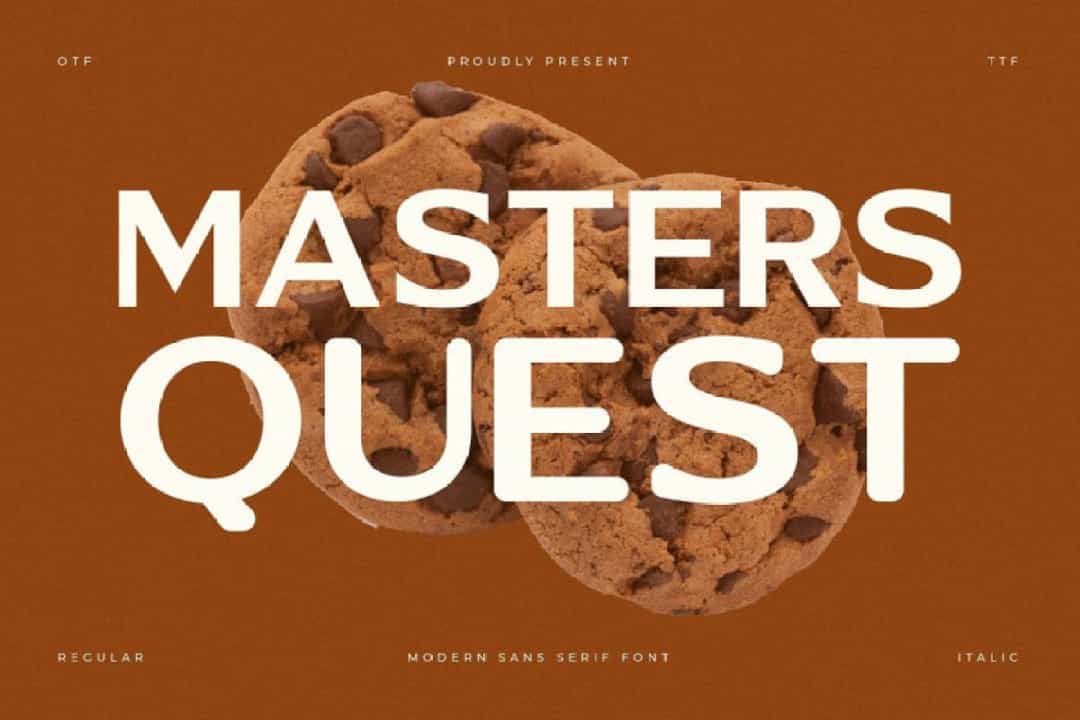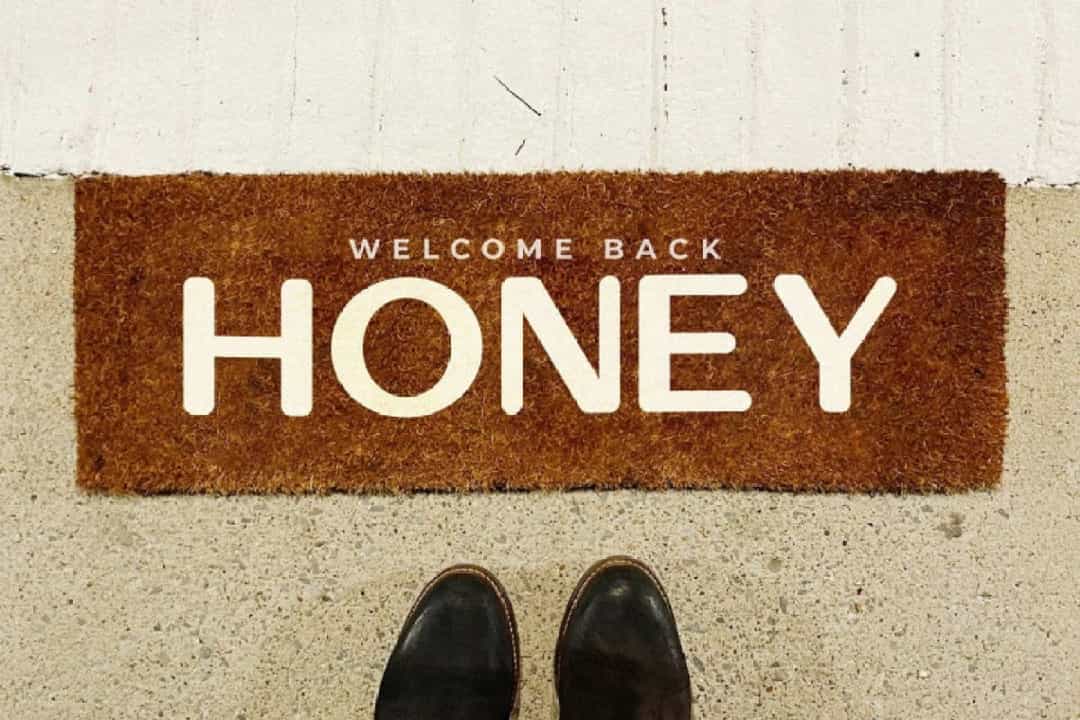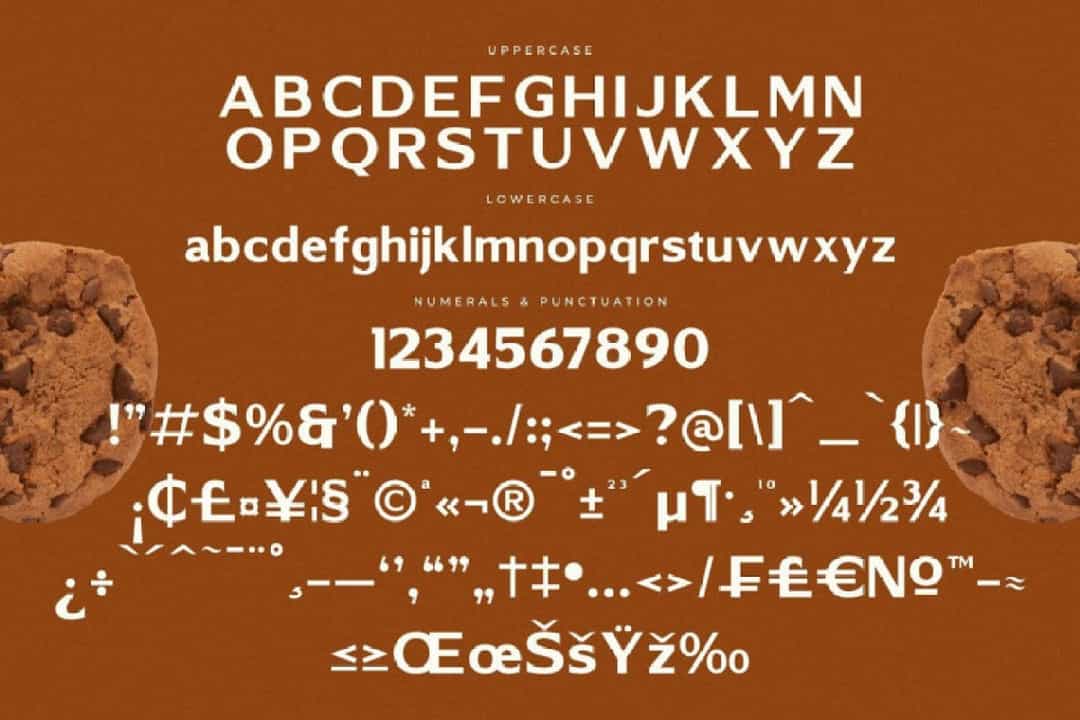
Masters Quest is an elegant font with an understated and minimalistic appearance, making it the ideal font to add a timeless quality to your designs such as books, magazines, invitations, social media posts and more! It features sleek lines for easy application in books and magazines as well as invitations and social media posts – perfect for use across various mediums!